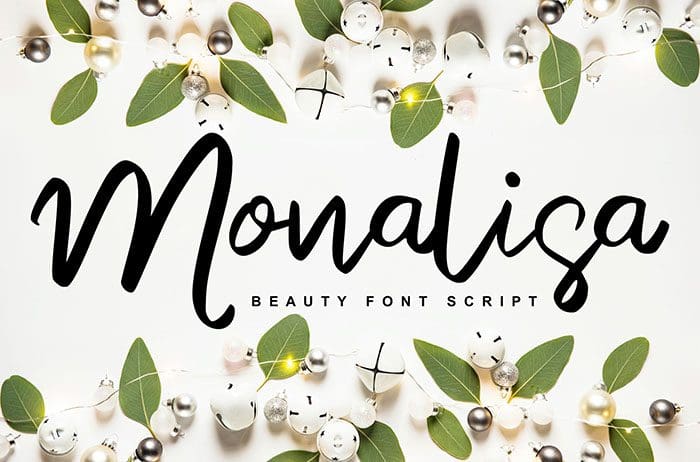
Monalisa Script Font
Monalisa Script Font. It’s a perfect font for, all kinds of wedding stationery, packaging, social media posts, and much more! Thanks to Vunira Studio for sharing this font! Take a look at this portfolio for more of his stunning fonts.